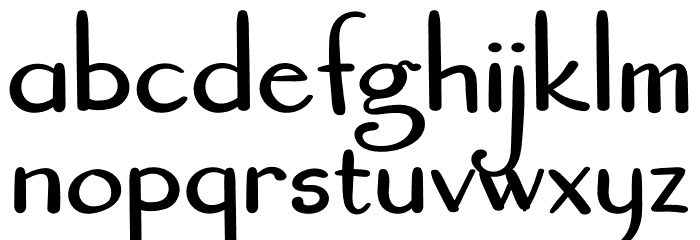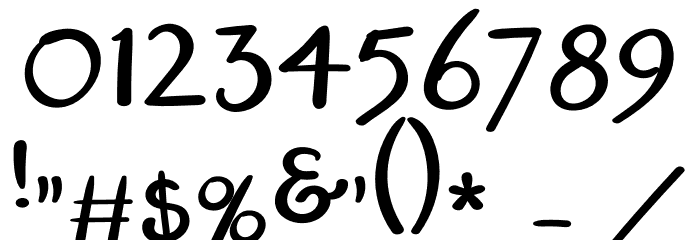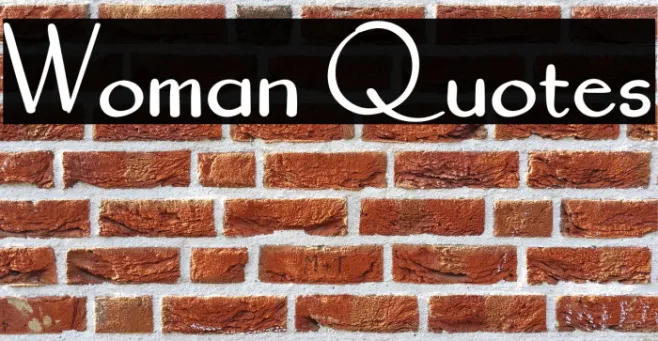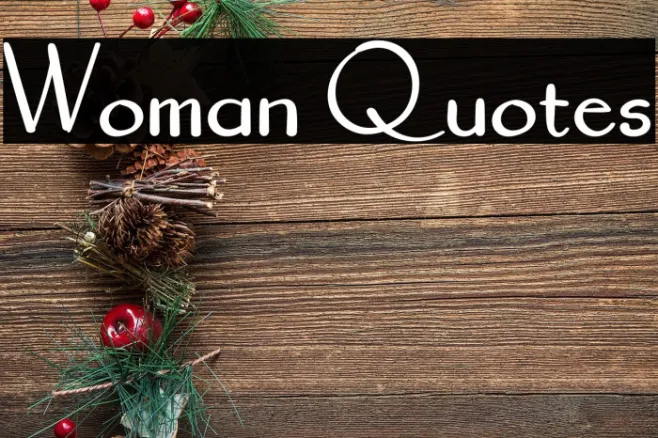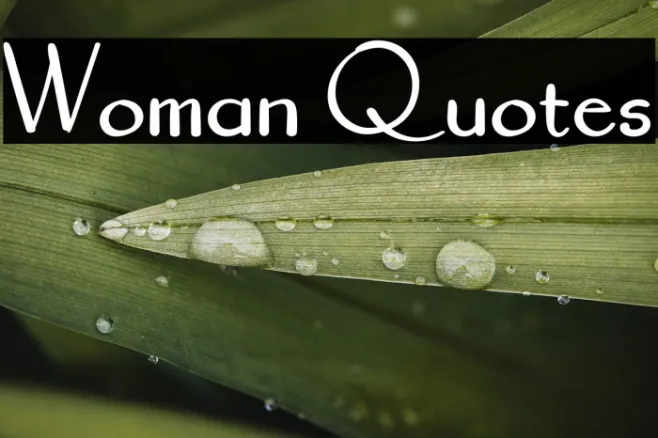
Woman Quotes Font
This font features a playful and whimsical design, characterized by its smooth curves and slightly irregular strokes. The uppercase letters are tall and slender, while the lowercase letters are more rounded and compact, creating a friendly and approachable appearance. The numerals are consistent with the overall style, maintaining the same playful curves. Special characters are well-integrated, ensuring versatility in various design contexts. The font's unique style makes it suitable for creative projects that require a touch of personality and charm.
A playful and whimsical font with smooth curves and slightly irregular strokes.
- Proposed Projects: Ideal for children's books, playful branding, greeting cards, and creative posters.
- Overall Style: Playful